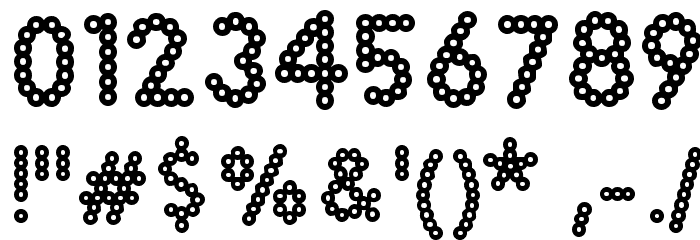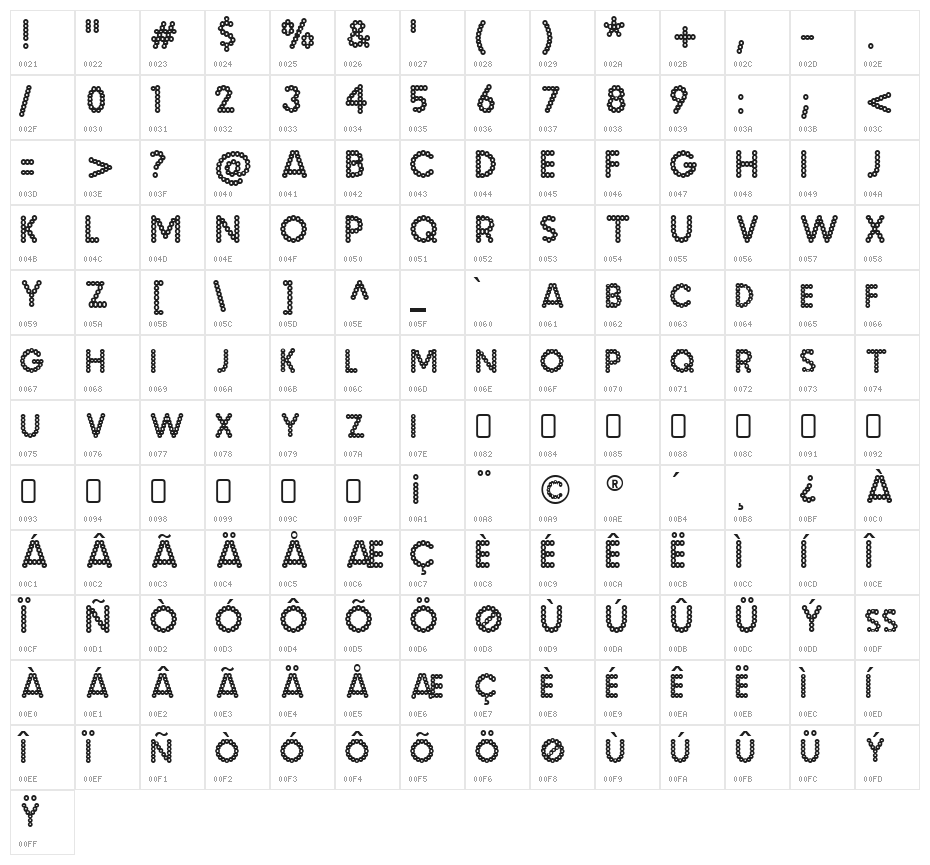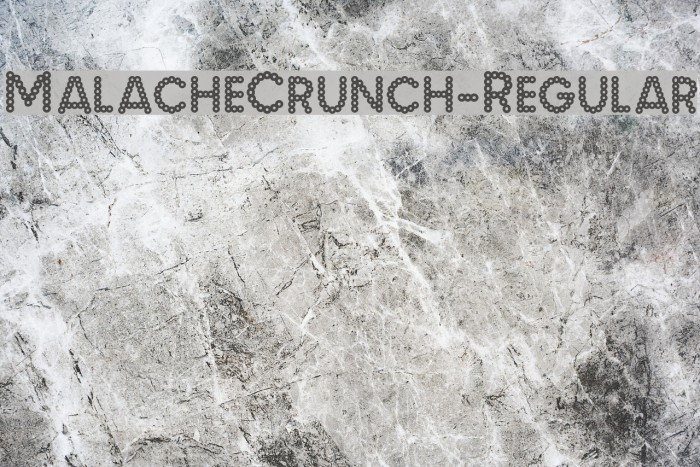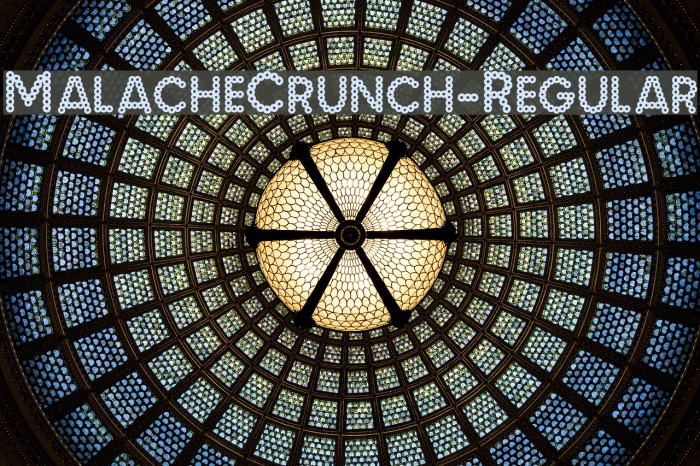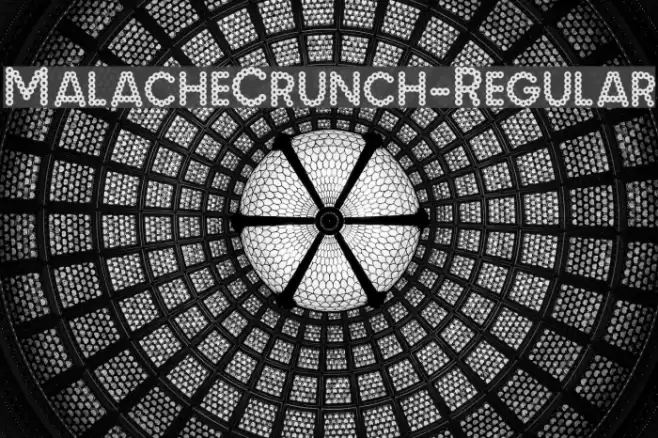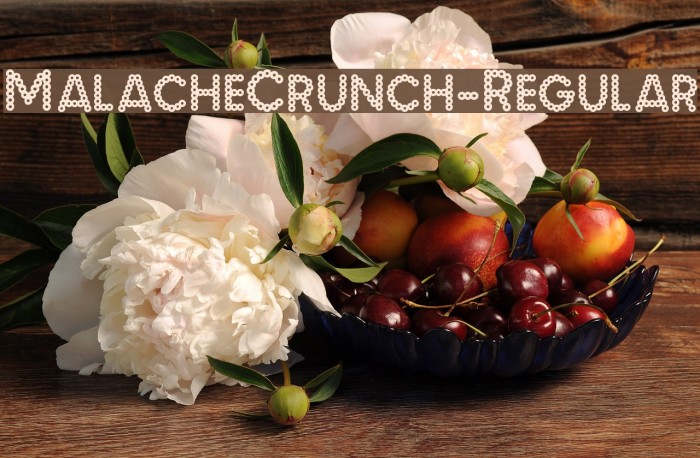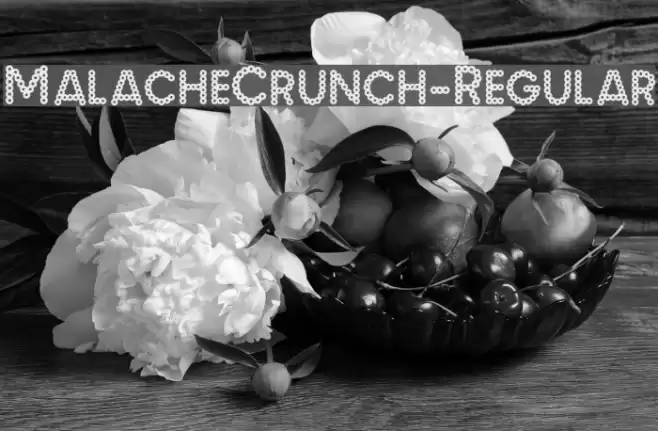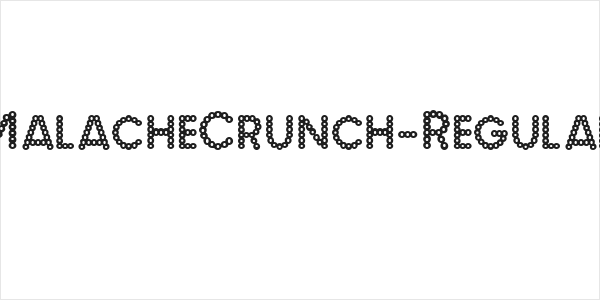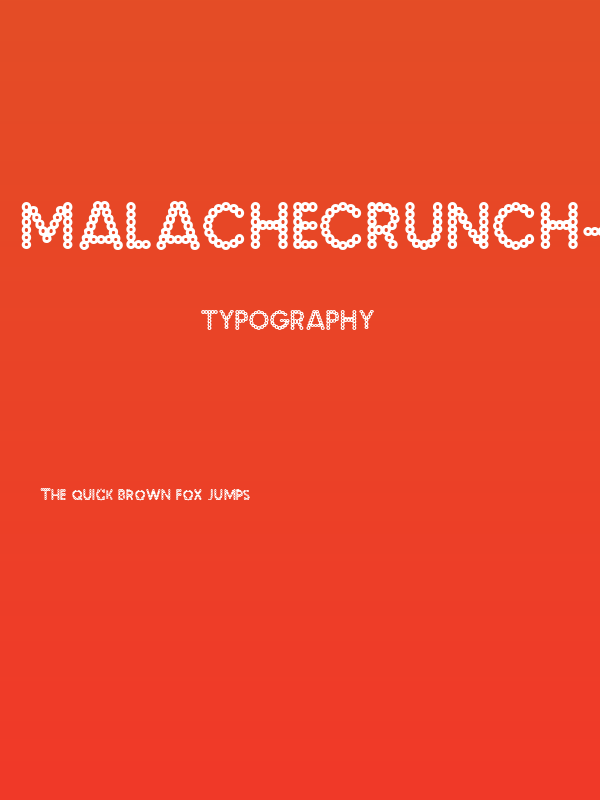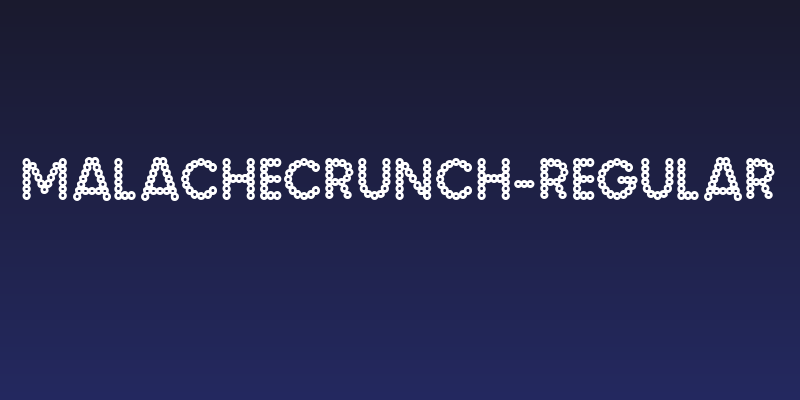
MalacheCrunch-Regular Font
MalacheCrunch-Regular Description
This font features a unique design where each character is composed of a series of interconnected circular dots, creating a playful and eye-catching pattern. The letters and numbers maintain a consistent size and shape, ensuring readability while adding a decorative flair. The font includes both uppercase and lowercase letters, numerals, and a variety of special characters. Its geometric and modular appearance makes it stand out, offering a modern twist on traditional typography. The consistent use of circular elements gives it a cohesive look, ideal for projects that require a bold and distinctive visual impact.
| Proposed Projects | This font is perfect for creative projects such as posters, logos, children's books, and event invitations where a playful and modern aesthetic is desired. |